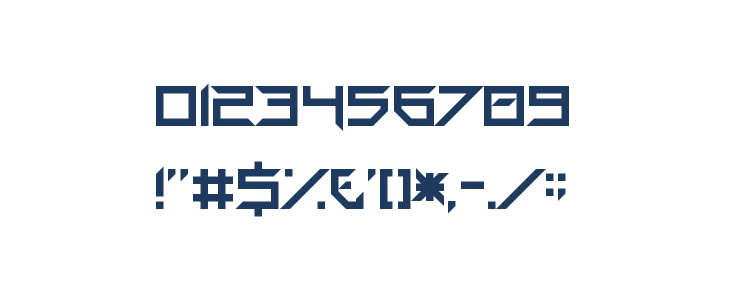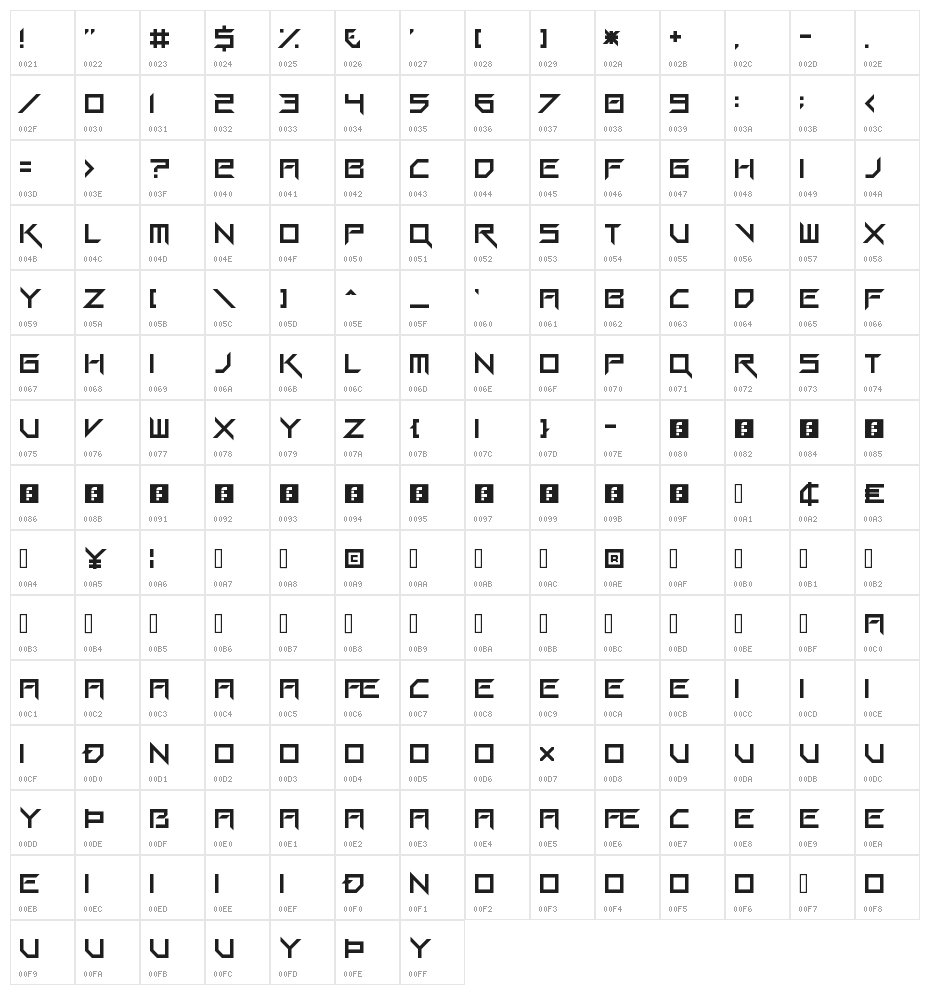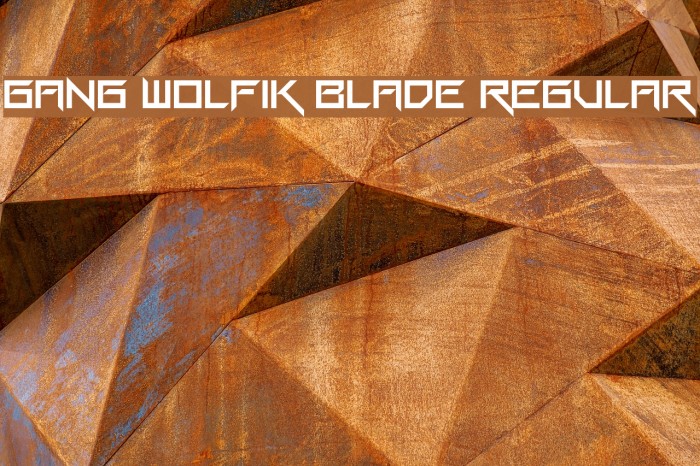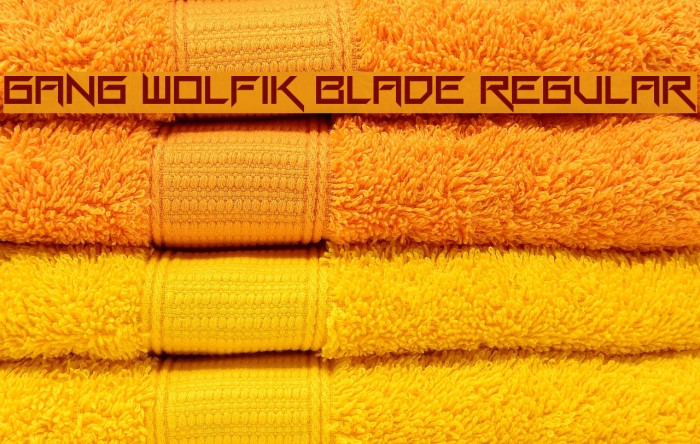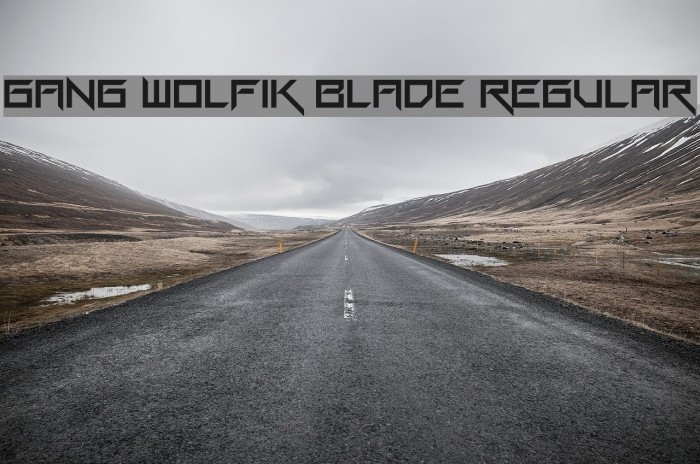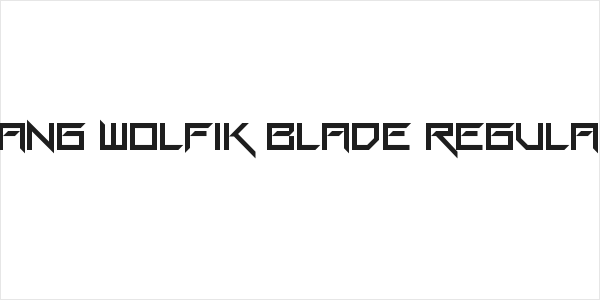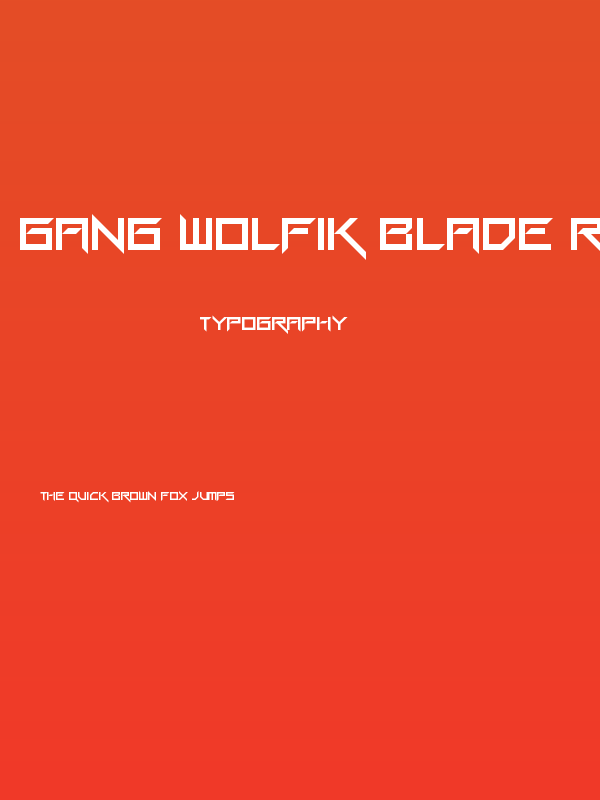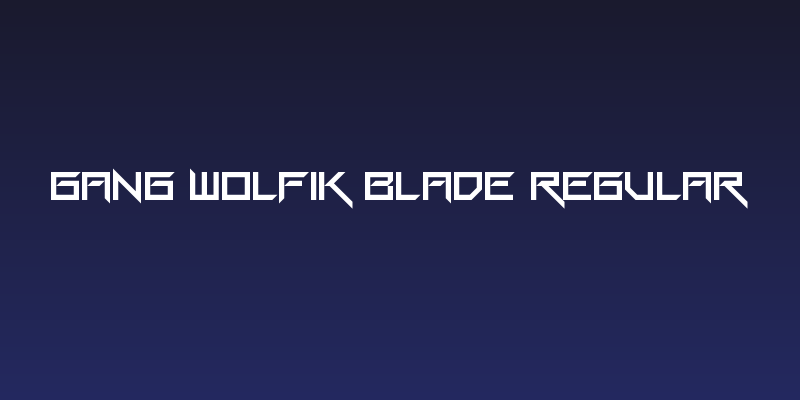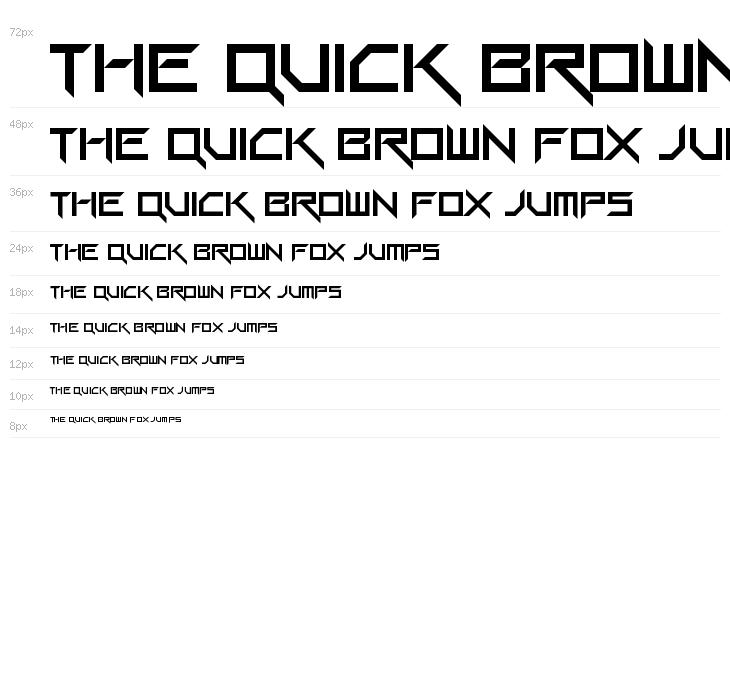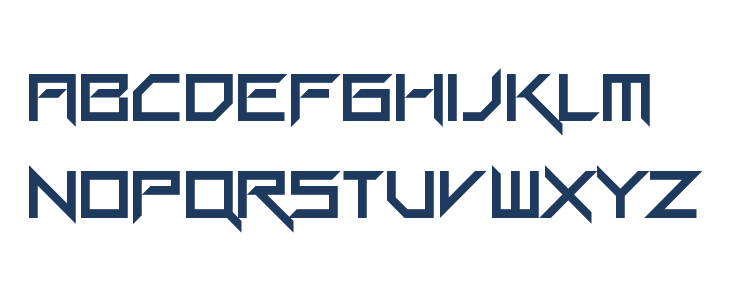
Gang Wolfik Blade Regular Font
Gang Wolfik Blade Regular Description
This font features a bold, geometric design with sharp angles and a futuristic aesthetic. The characters are constructed with straight lines and pointed edges, giving it a dynamic and edgy appearance. The uppercase and lowercase letters maintain a consistent style, with a uniform height and width that enhances readability while retaining a unique, modern look. The numbers and special characters follow the same design principles, ensuring a cohesive visual identity across all elements. The font's distinct style makes it suitable for projects that require a strong, impactful presence.